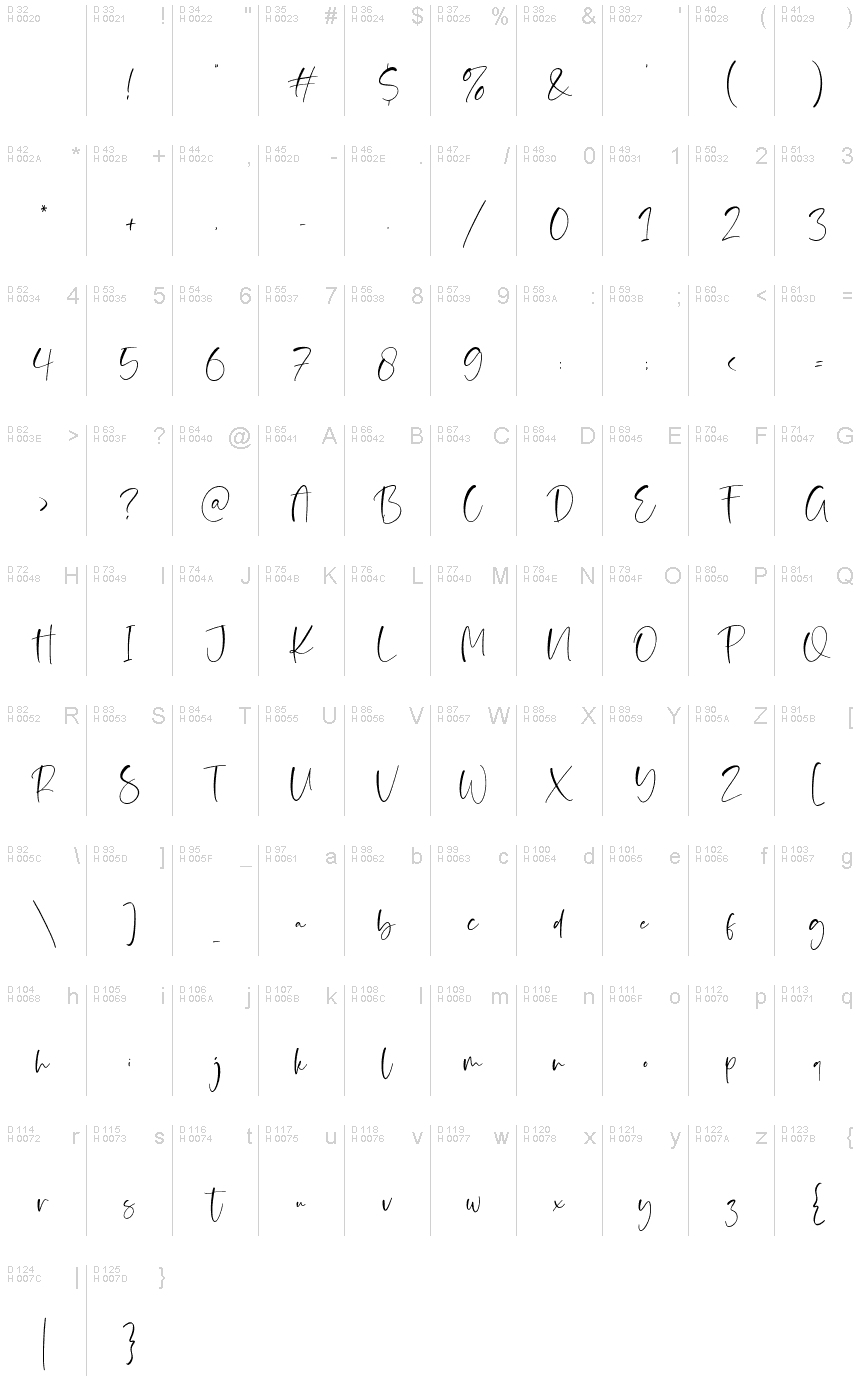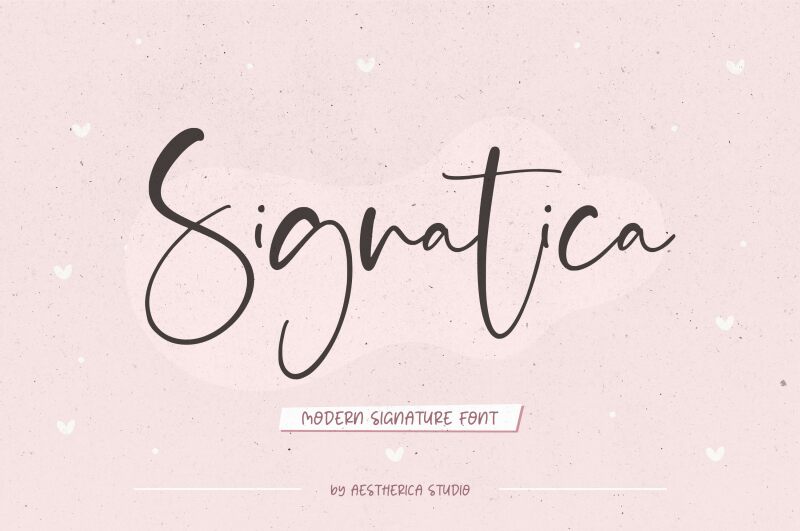
Signatica
Signatica, designed by Aestherica Studio, is a captivating handwritten font that exudes elegance and sophistication.
Its light weight adds a delicate touch to any project, making it perfect for wedding invitations, personal branding, and logo design. With its signature style, Signatica adds a refined and personalized touch to digital and print materials alike. Whether you're creating luxury packaging or crafting exquisite stationery, this font will elevate your designs with its graceful curves and fluid strokes.
Let Signatica embrace your creativity and leave a lasting impression on your audience.